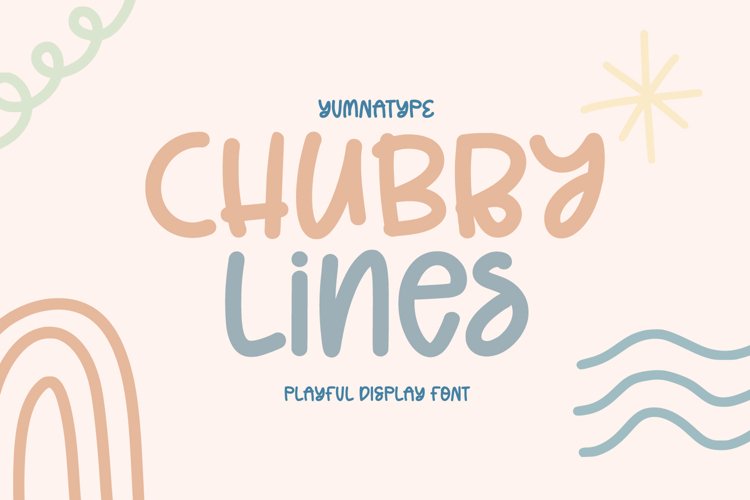
Chubby Lines
It can be a difficult task to find a unique, attractive, prominent display font for your design because you always want to use a more distinctive font than the others. Therefore, Chubby Lines offers you the best solution. It is a lovely display font in rounded shapes to express soft, friendly nuances to your design. Its unique geometry details and contrast sketch lines create a visually interesting font. To be easily readable, this font is best applied for big text sizes, which also provides you with a special clipart as a bonus. Furthermore, you can enjoy the available features here.
Chubby Lines fits for various design projects, such as posters, banners, logos, magazine covers, quotes, headings, printed products, merchandise, social media, etc. Find out more ways to use this font by taking a look at the font preview.